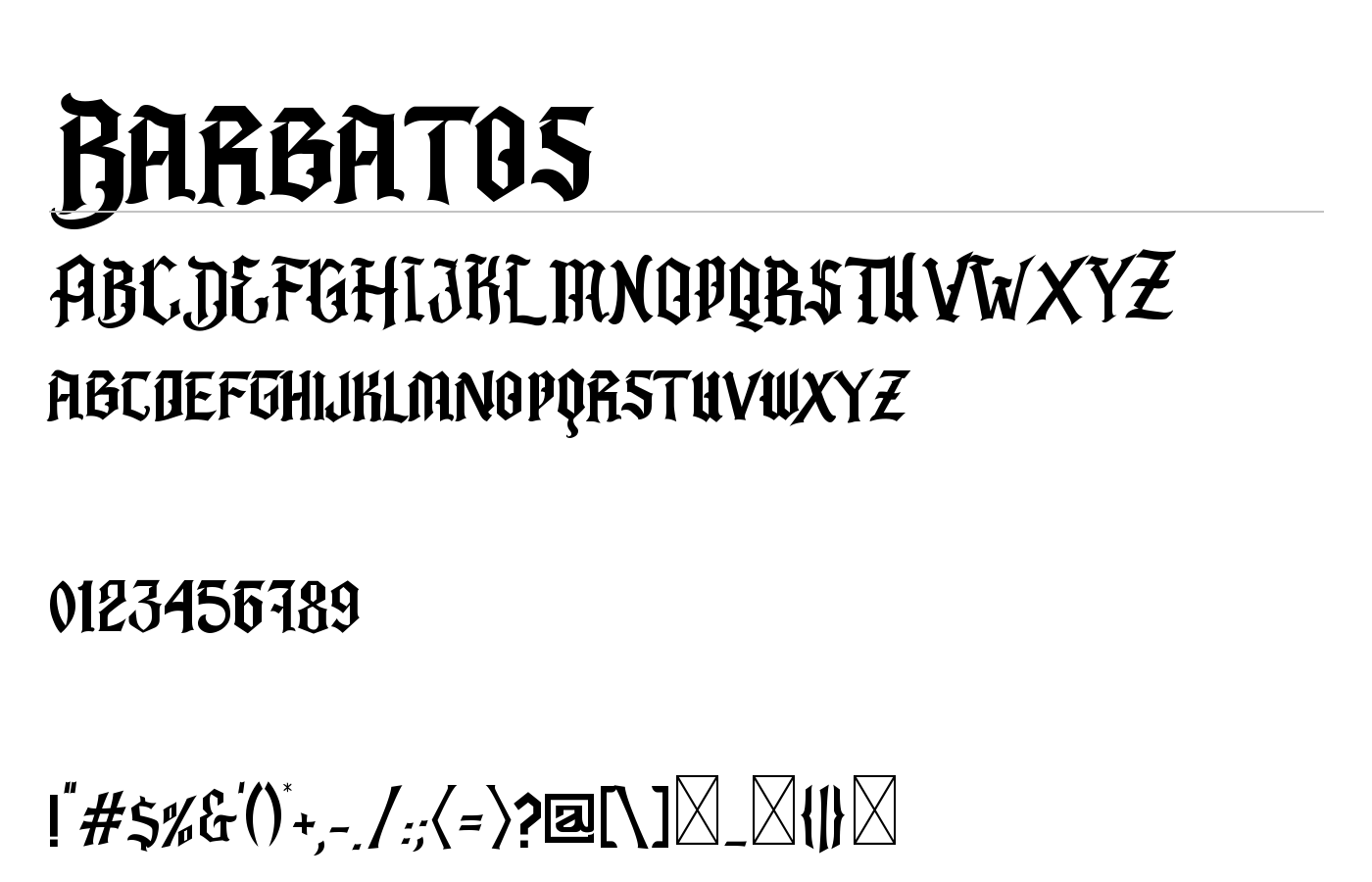
Barbatos is a bold, blackletter-style serif font with sharp, angular strokes and a dramatic, gothic flair. Its high contrast and distinct heavyweight shapes make it ideal for creating strong, medieval-inspired logos and headlines that demand attention. This font works best in projects seeking a vintage, mysterious, or edgy feel, such as branding for alternative fashion, tattoo studios, or themed events.
Barbatos Font
About Barbatos Font
| Font family | Barbatos Font |
| Designer | typotopia |